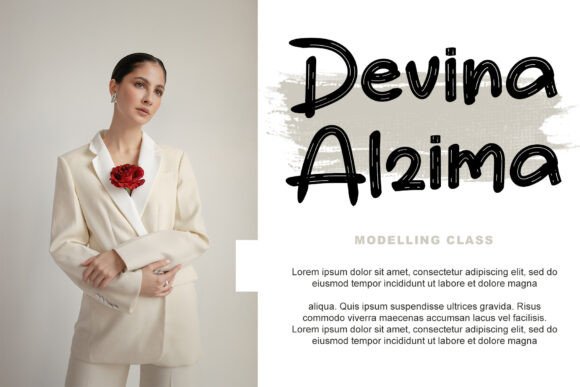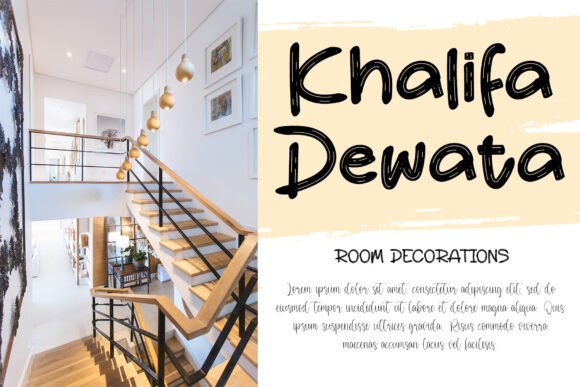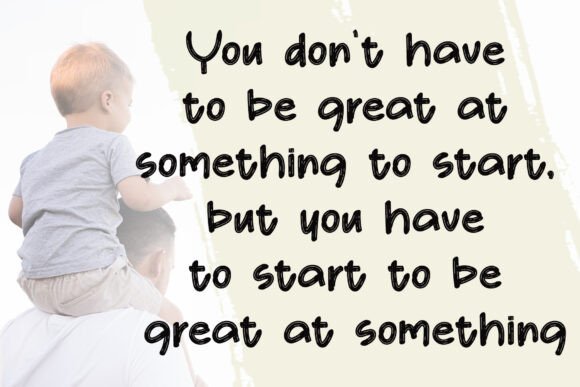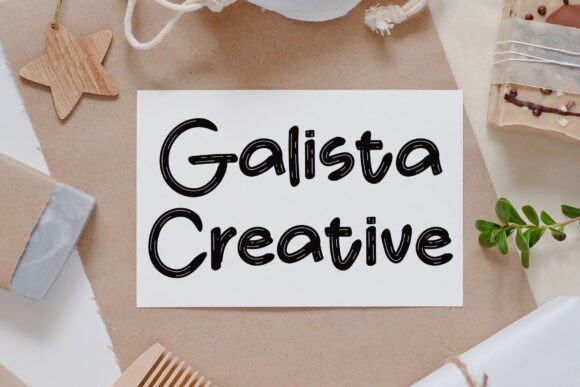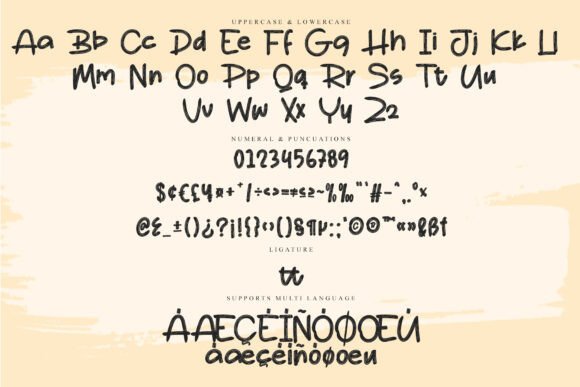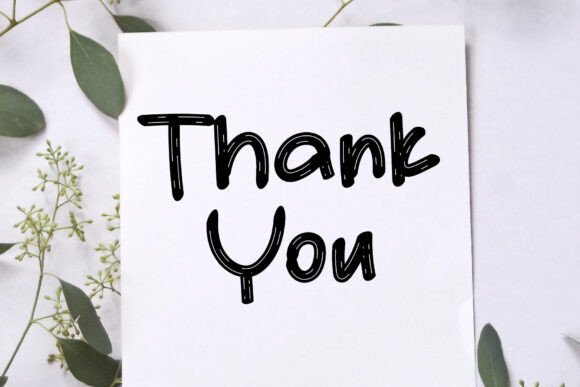
Unlocking the Magic of Bright Glisten Font
Imagine you’re brainstorming ideas for a children’s book, and suddenly, the words “fun,” “playful,” and “whimsical” come to mind. You start sketching out characters and storylines, and the excitement builds up. This is exactly the kind of creative spark that the Bright Glisten Font is designed to ignite.
This charming display font is perfect for adding a dash of personality to your designs, particularly when it comes to cheerful topics like kids’ themes. Its quirky nature and PUA encoding make it incredibly easy to access and use the font’s amazing glyphs and ligatures, taking your designs to the next level. Whether you’re a seasoned designer or just starting out, the Bright Glisten Font is an invaluable tool to have in your creative arsenal.
Bright Glisten Font Key Features
- Font Family: Bright Glisten is a unique, hand-drawn script font.
- Character Set: Includes a wide range of characters, including uppercase and lowercase letters, numbers, and punctuation marks.
- Unique Characteristics: Bright Glisten features a distinctive, hand-crafted look with subtle texture and imperfections, giving it a personal touch.
Bright Glisten Font Review
First impressions are everything, and the Bright Glisten Font has caught my eye with its ✨ sparkly, elegant design. The font is perfect for adding a touch of luxury and sophistication to any project. The unique sparkle effect creates a sense of depth and visual interest, making it stand out from more traditional fonts.
- ✨ Unique sparkle effect adds visual interest and depth
- Elegant design suitable for luxury and high-end projects
- Works well for headings, titles, and short paragraphs
- ⚠️ May be difficult to read in large blocks of text due to the sparkle effect
- ⚠️ Limited character set and font sizes may affect readability
- ⚠️ May not be suitable for projects with a more minimalist or clean design aesthetic
Overall, the Bright Glisten Font is a great choice for projects that require a touch of luxury and sophistication. While it may have some limitations, its unique sparkle effect and elegant design make it a valuable addition to any designer’s toolkit.
Getting the Most Out of Bright Glisten Font
Use Bright Glisten Font for titles, headings, and other prominent text elements to create a visually appealing design.
Experiment with different font sizes, colors, and styles to achieve the desired effect.
Combine Bright Glisten Font with other design elements, such as graphics and images, to create a cohesive and engaging visual identity.
Use Bright Glisten Font for:
1. Branding and logo design.
2. Advertising and marketing materials.
3. Digital signage and displays.
4. Print materials, such as business cards and brochures.